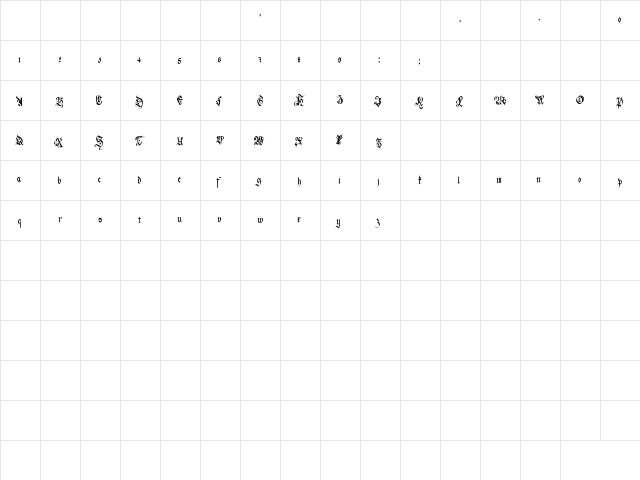
holyrose-font-midnightea Regular
Design Context for holyrose-font-midnightea Typeface
holyrose-font-midnightea is a composed and adaptable typeface that performs quietly and consistently across a wide range of design contexts.